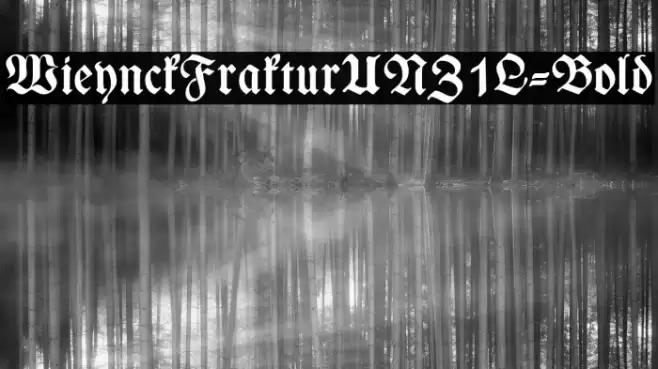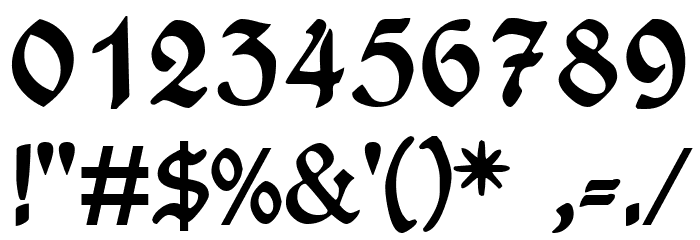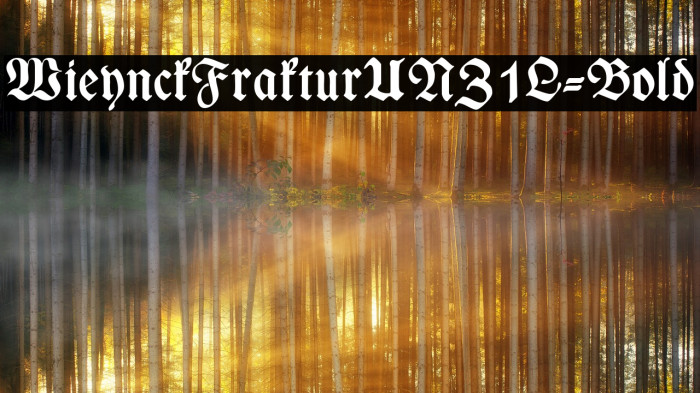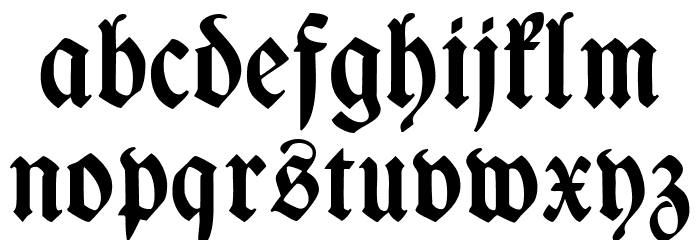
WieynckFrakturUNZ1L-Bold Font
WieynckFrakturUNZ1L-Bold Description
This font exhibits a traditional Blackletter style, characterized by its intricate and ornate letterforms. The uppercase letters feature sharp, angular lines with decorative flourishes, while the lowercase letters maintain a consistent gothic aesthetic with pointed arches and curves. The numerals are bold and maintain the same stylistic elements, ensuring uniformity across the typeface. Special characters are equally ornate, fitting seamlessly with the overall design. This font's historical and classic appearance makes it ideal for projects requiring a touch of medieval or vintage elegance.
A traditional Blackletter font with ornate, gothic letterforms and decorative flourishes from Uncategorized fonts.
- Proposed Projects: Ideal for historical documents, vintage-themed designs, book covers, wedding invitations, and branding that requires a classic or medieval touch.
- Overall Style: Vintage
- Use Case: Logos, Headlines, Decorative text